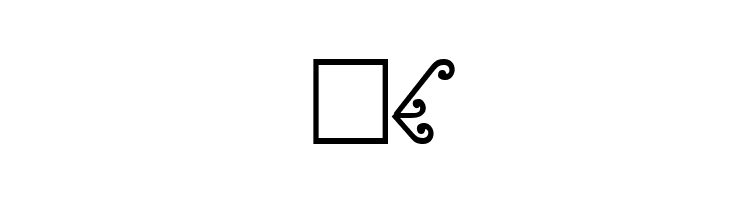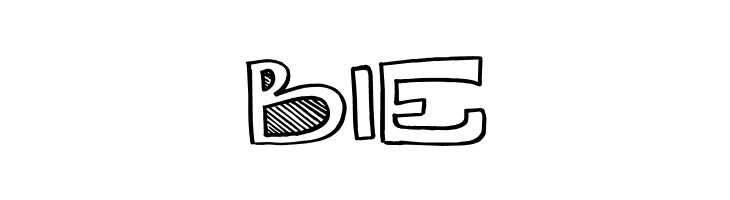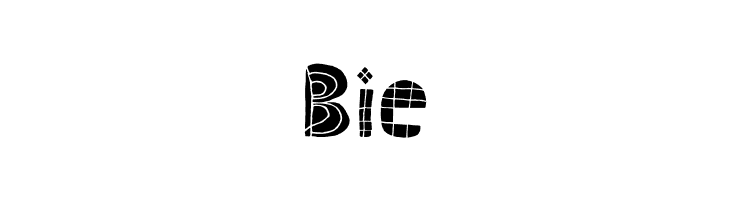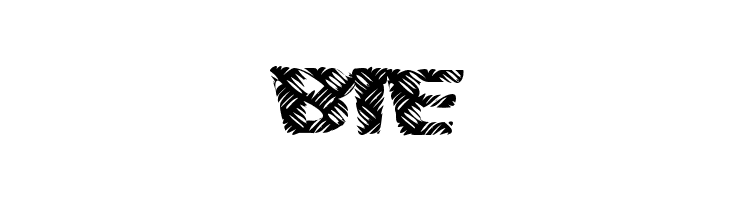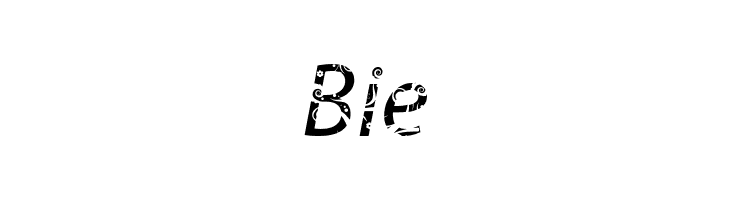
A decorative font inspired by traditional Maori motifs with intricate swirling patterns.
A playful, hand-drawn font with bold outlines and textured patterns.
A bold, playful font with a tartan pattern and geometric shapes.
A bold, decorative font with intricate floral patterns in each character.
A bold, decorative font with a unique slashed pattern for dynamic visual impact.
A bold, decorative font with geometric patterns and thick outlines.
A playful, decorative font with intricate patterns and a hand-drawn style.